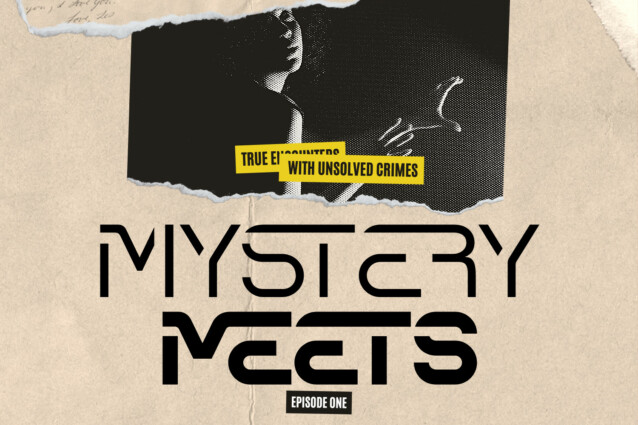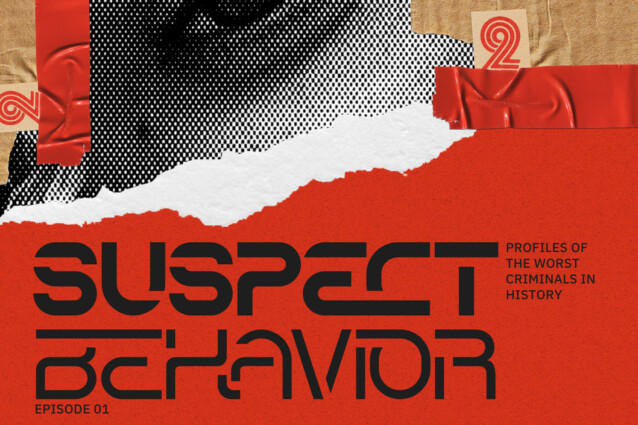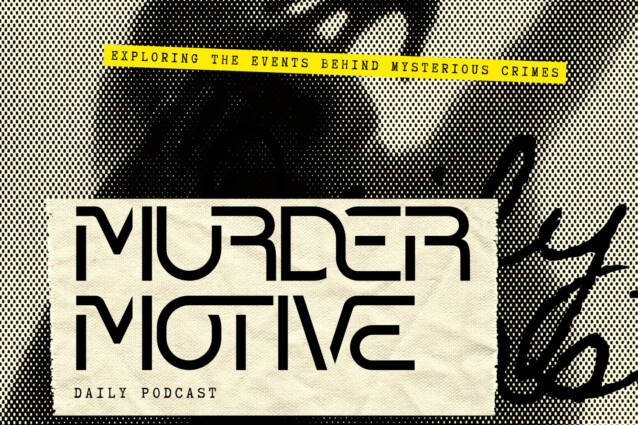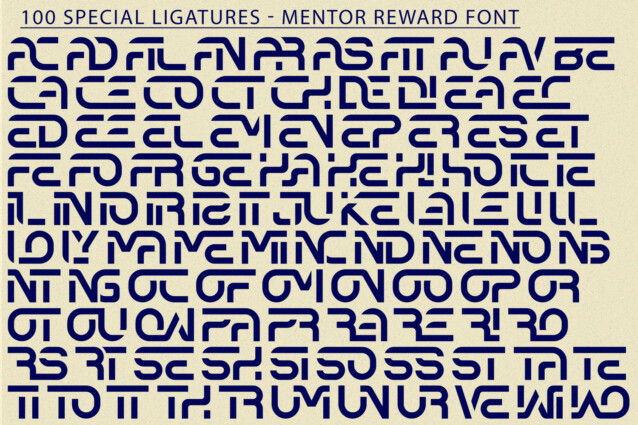
Mentor Reward Font
Mentor Reward Font is a luxury font come in all caps that will make your designs look both futuristic and modern, using a simple design for a clean and elegant look. Perfect for sci-fi themes, tech branding, or any project that demands a modern edge, these fonts empower creativity with their versatility and user-friendly customization options. Elevate your designs to the next level and embrace the future of typography with our Futuristic Font product.
Mentor Reward was built with OpenType features and includes 100 ligatures, alternate, numbers, punctuation, and it also supports other languages.
AC AD AL AN AR AS AT AU AV BE CA CE CH CO CT DE DI EA EC ED EE EL EM EN EP ER ES ET FE FO FR GE HA HE HI HO IE IC IL IN IO IR IS IT JU KE LA LE LI LL LO LY MA ME MI NC ND NE NG NO NT NS OC OF OM ON OO OP OR OT OU OW PA PR RA RD RE RI RO RS RT SE SH SI SO SS ST TA TE TH TI TO TR TT UM UN UR VE WI WO